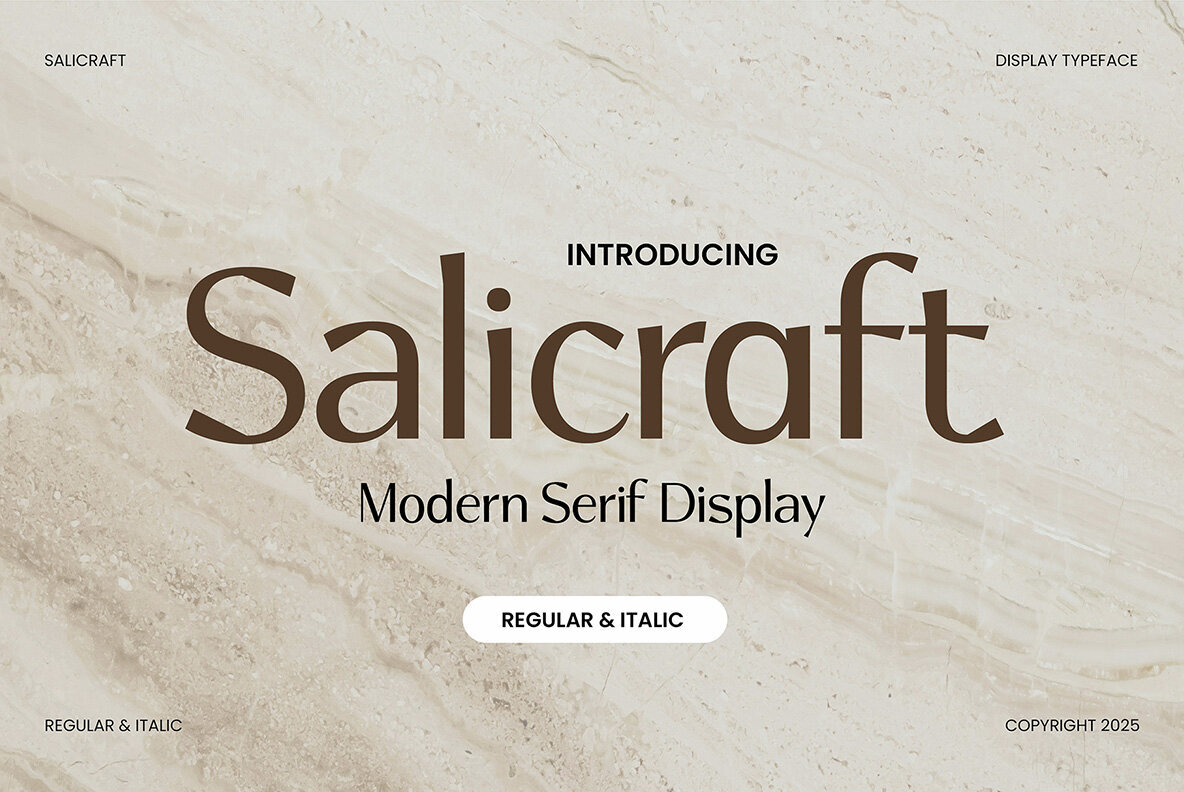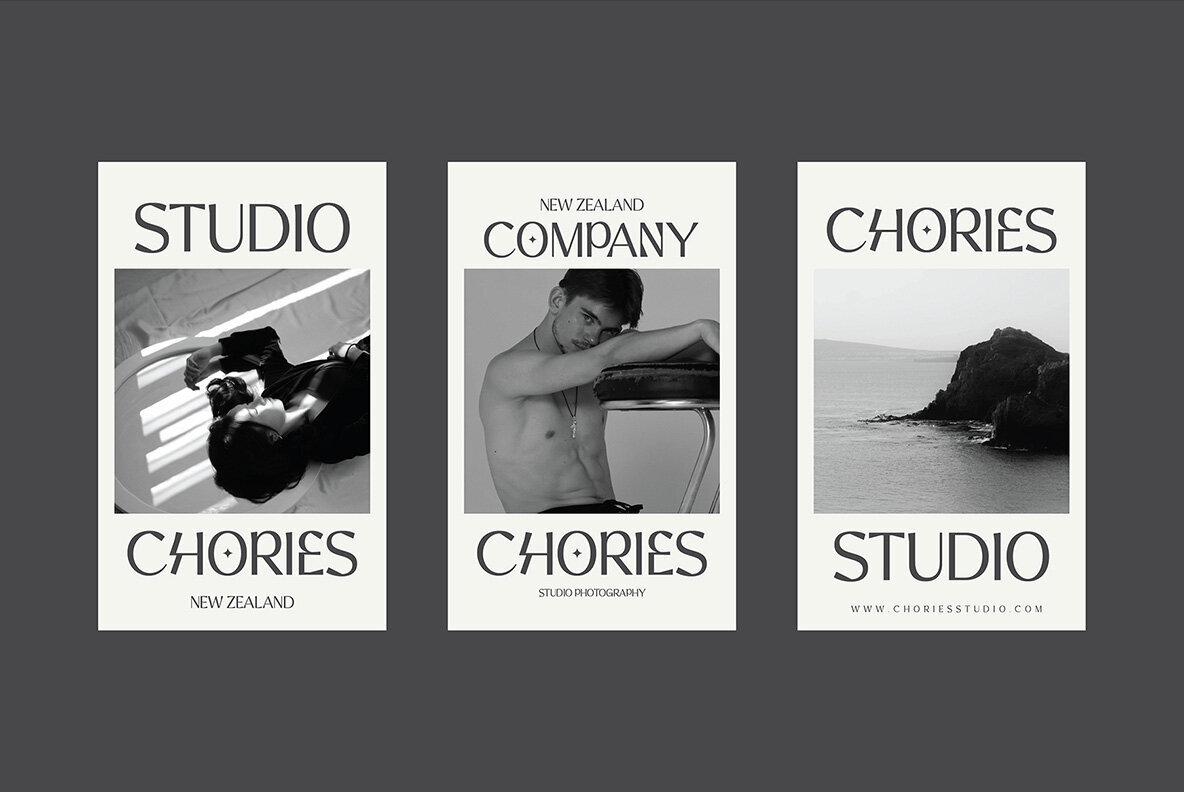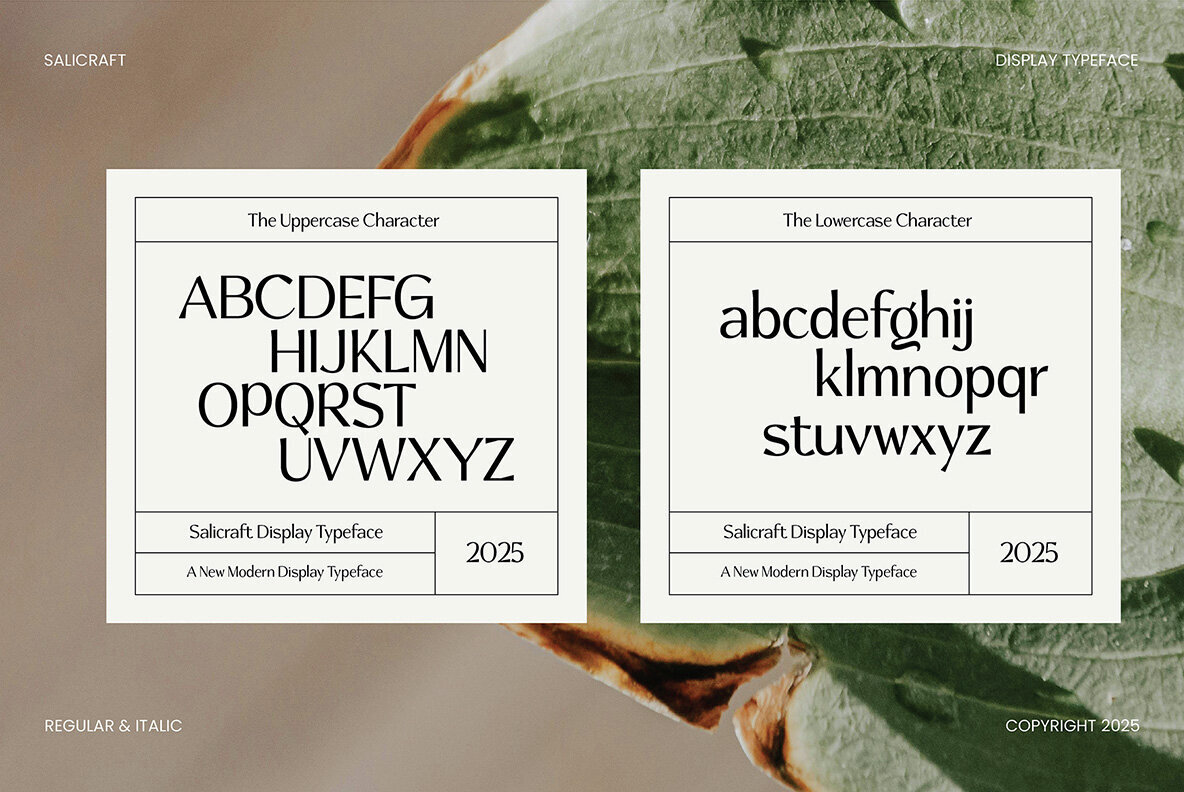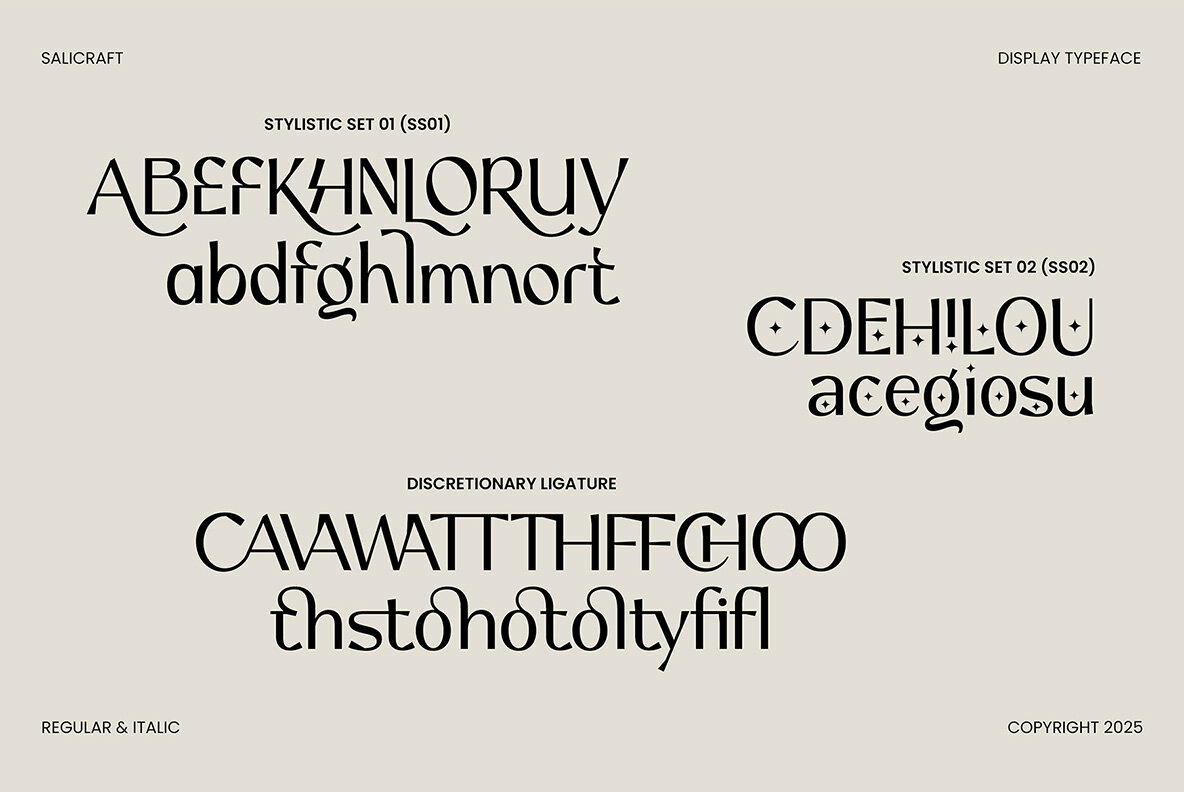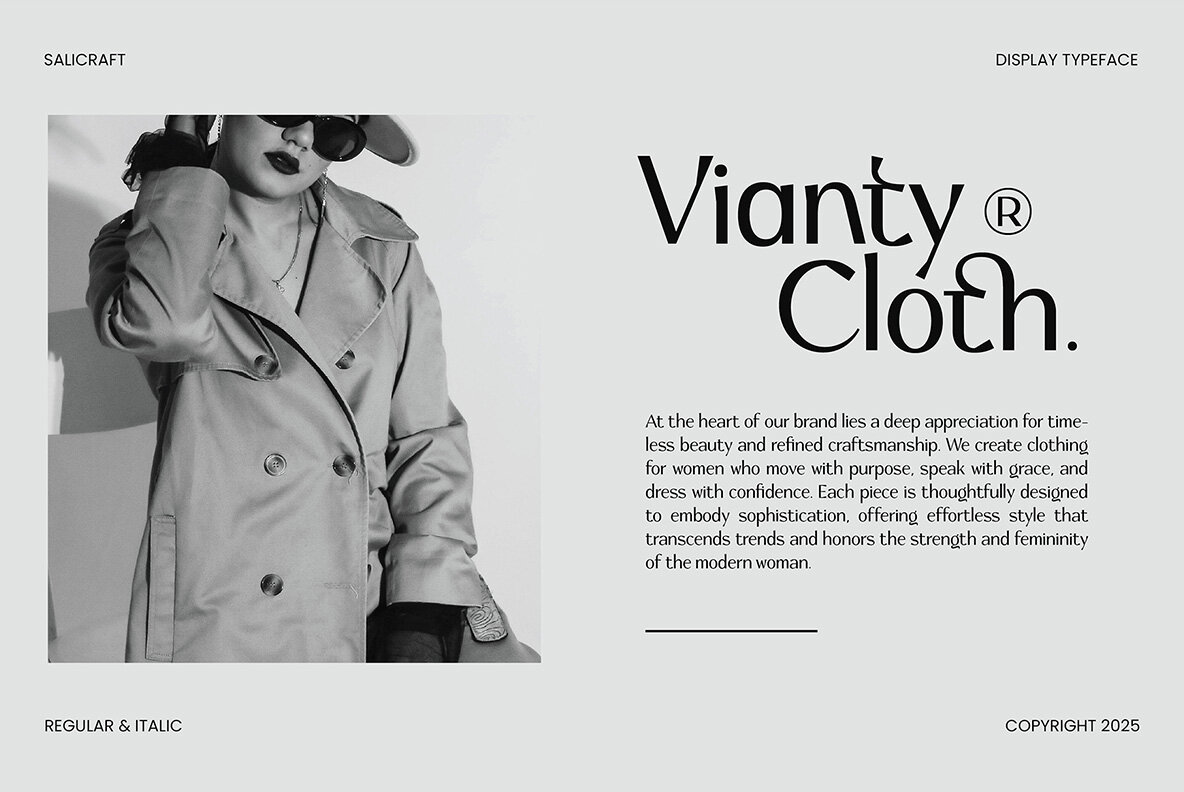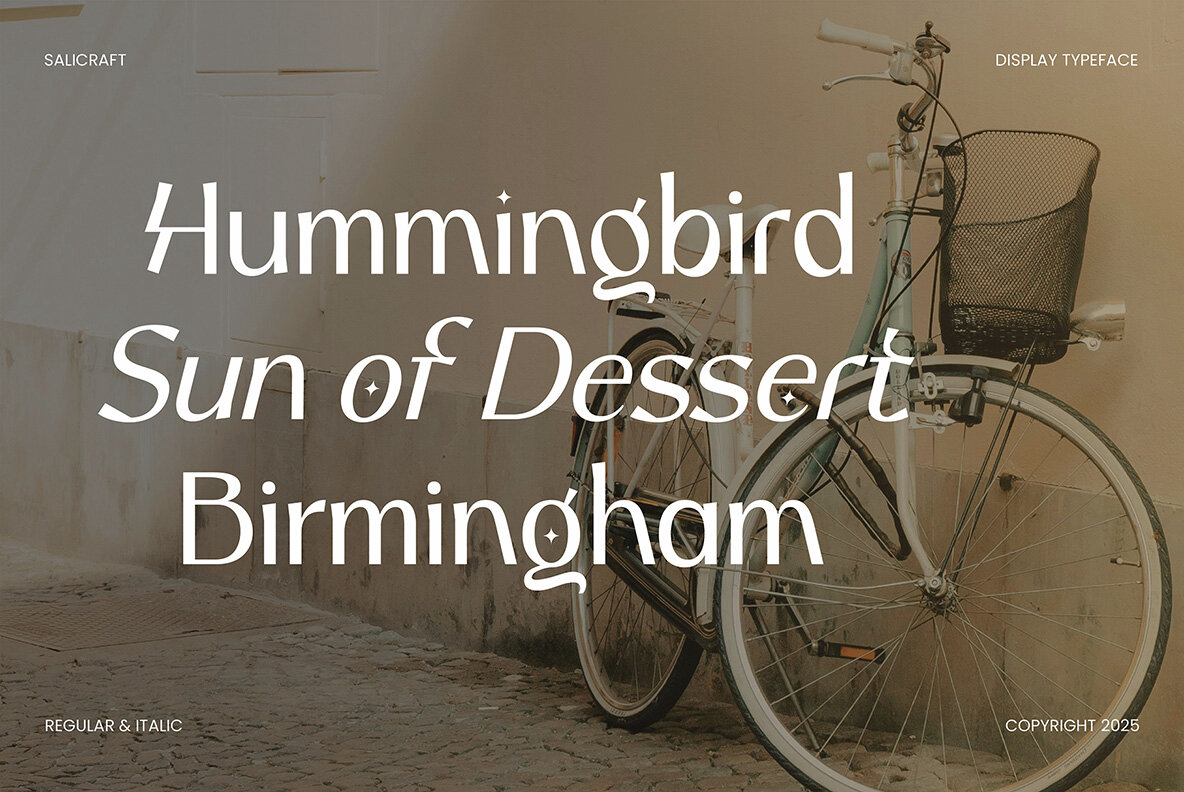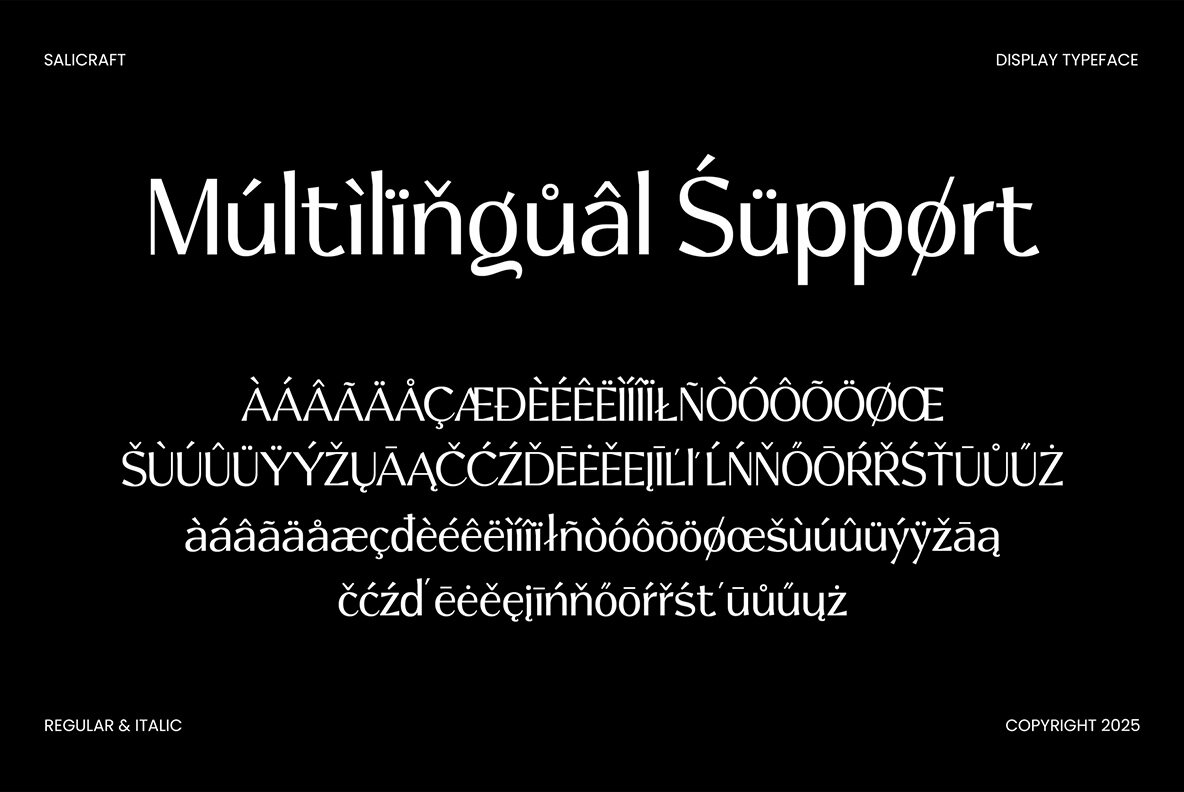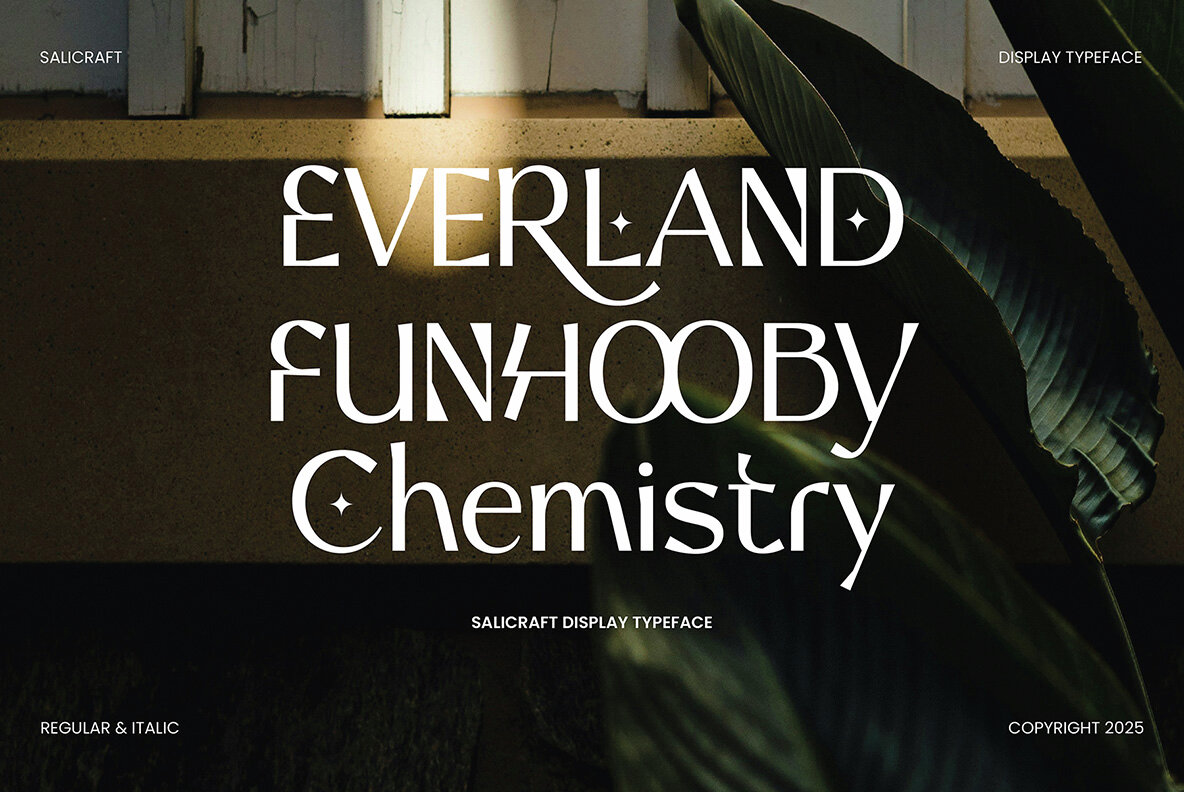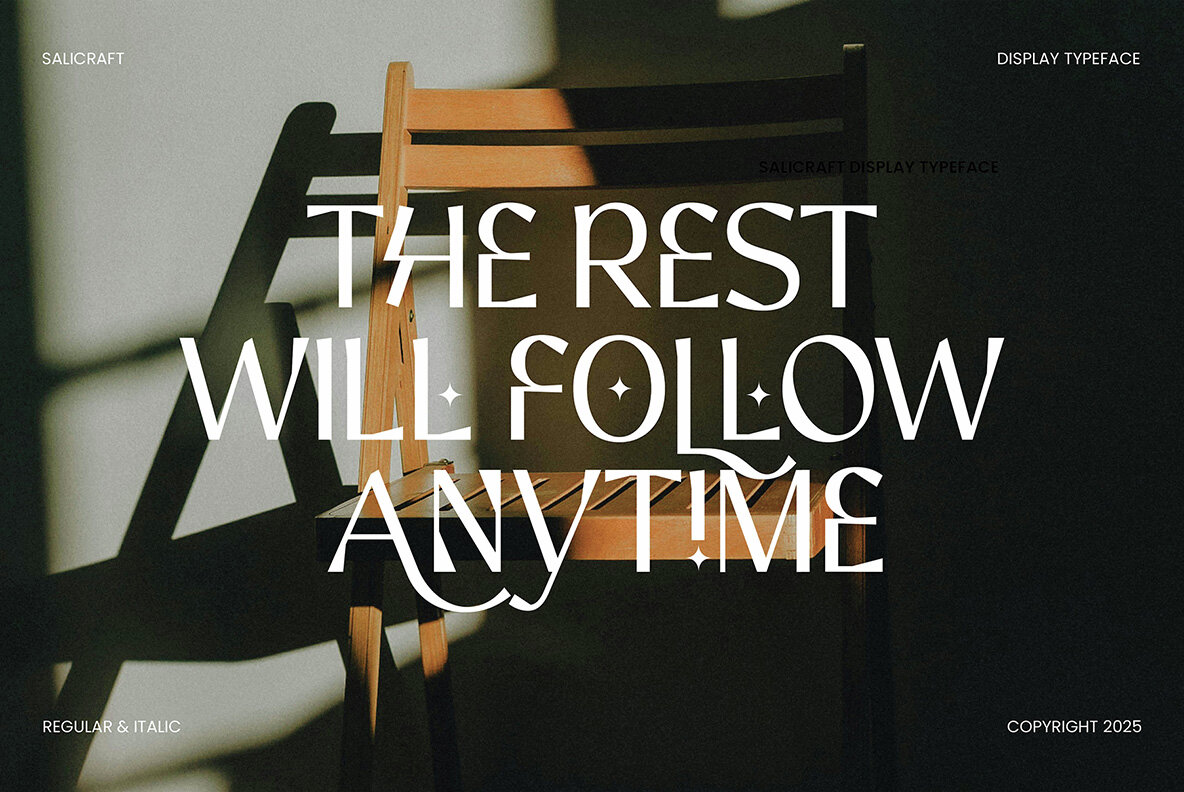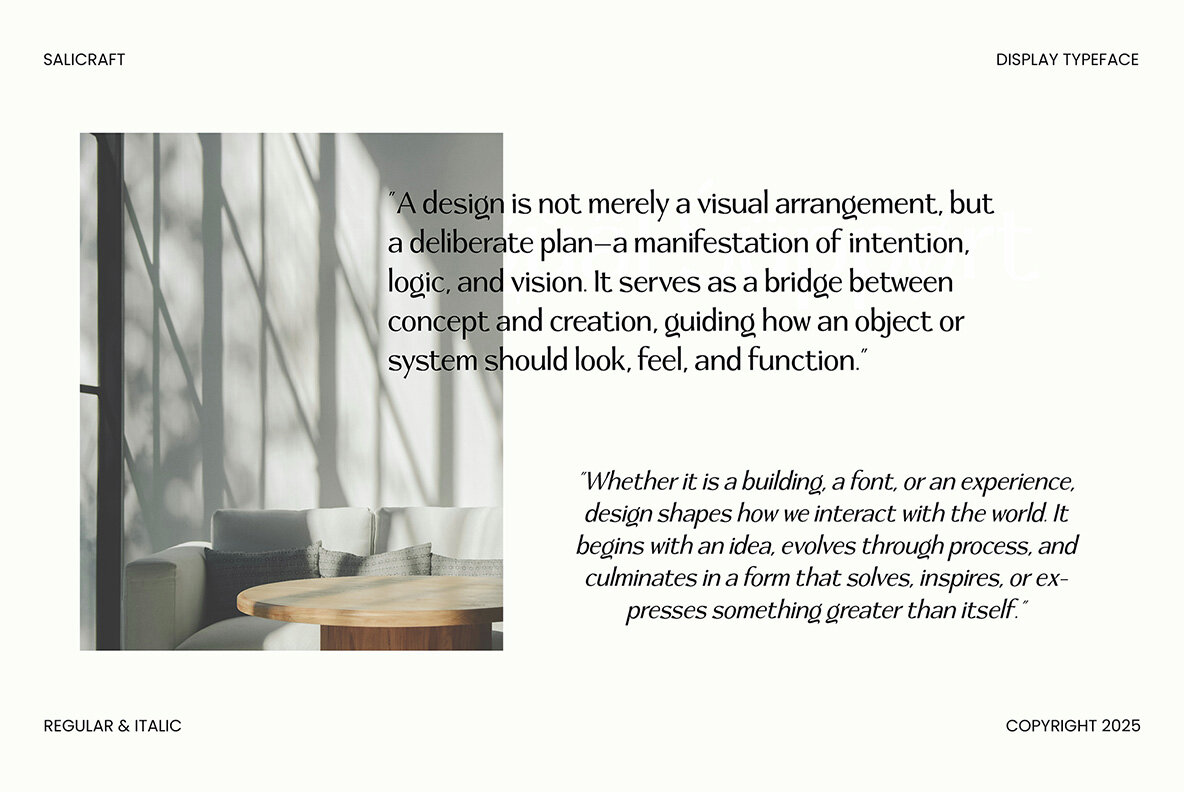
Salicraft embodies a relaxed, casual serif style that resonates with a friendly and informal feel. Its characters, seemingly written with a free hand, capture an essence of spontaneity and ease. The uneven line thickness and slightly tilted letterforms infuse this typeface with a dynamic liveliness. Ideal for projects demanding a personal and creative flair, Salicraft shines in applications ranging from invitations to greeting cards, posters, and more. Its unique style offers a distinctive element to any visual presentation.Salicraft: A Playful Serif for Creative Designs